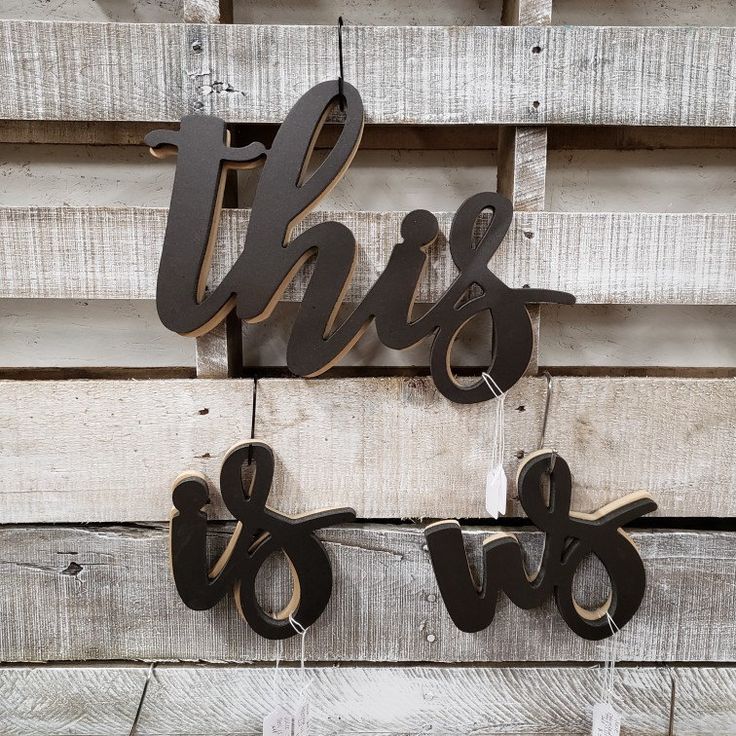
Best Fonts for Wood Signs A Rustic Guide
Best fonts for wood signs? It’s more than just picking a pretty typeface; it’s about creating a visual masterpiece that’s both legible and aesthetically pleasing. The right font can transform a simple piece of wood into a charming farmhouse sign, a rustic welcome message, or a stylish statement piece for your home. We’ll dive into the world of serif, sans-serif, and script fonts, exploring font weights, sizes, and how different wood types influence your choices.
Get ready to discover the perfect font for your next wood sign project!
This post will guide you through selecting the ideal font for your wood sign, covering everything from rustic charm to modern farmhouse styles. We’ll explore font styles, sizes, readability, and material compatibility, ensuring your message is clear and captivating. We’ll also look at specific examples for different sign types, like wedding signs, business signs, and home decor signs. Let’s get crafting!
Font Styles for Rustic Appeal
Choosing the right font for a wood sign is crucial for achieving the desired aesthetic and ensuring readability. The rustic charm of a wood sign is often enhanced by the careful selection of typography, balancing visual appeal with practicality. The font should complement the natural texture and warmth of the wood, creating a cohesive and eye-catching piece.
Serif Fonts for Readability at a Distance
Serif fonts, with their small decorative strokes at the ends of letters, often lend themselves well to wood signs, particularly when readability from a distance is important. Their classic feel aligns perfectly with the rustic aesthetic. Imagine three different wood signs:
Mockup 1: A sign featuring the font “Playfair Display” announces “Welcome to Our Farm”. The elegant serifs and slightly condensed letterforms provide a sophisticated yet rustic feel, ensuring the text remains clear even from afar. The slightly high contrast between thick and thin strokes adds visual interest without sacrificing legibility. The dark brown lettering stands out sharply against the light-colored wood.
Mockup 2: A sign using “Times New Roman” proclaims “Smith Family Orchard”. This classic serif font offers excellent readability, making it suitable for longer text. Its familiar and timeless appearance adds to the rustic charm of the wood. The consistent stroke weight creates a sense of balance and order, suitable for a more traditional sign. The sign is painted in a muted green, contrasting nicely with the wood grain.
Mockup 3: A sign displaying “Handcrafted with Love” in “Garamond” font. Garamond’s subtle serifs and slightly more open letter spacing contribute to its elegant and approachable appearance. This is a great choice for signs requiring a touch of refinement. The soft white paint complements the warm tones of the wood and makes the text easily visible.
Script versus Sans-Serif Fonts on Wood Signs, Best fonts for wood signs
Script fonts, with their flowing, cursive-like appearance, can add a touch of elegance and whimsy to a wood sign. However, their readability can be compromised, especially from a distance or with intricate designs. Sans-serif fonts, lacking those decorative strokes, offer a cleaner, more modern look. They are generally easier to read, making them suitable for signs requiring clear, concise messaging.
The contrast is stark: a script font might be perfect for a romantic, personalized message, while a sans-serif font is ideal for directional signage or a more contemporary aesthetic.
Font Weight’s Impact on Wood Sign Aesthetics
Font weight significantly influences the overall aesthetic of a wood sign. A bold font commands attention and makes a statement, ideal for a prominent sign or a message that needs to stand out. A light font conveys a more delicate, subtle feel, better suited for smaller signs or more understated messages. Regular weight fonts offer a balanced approach, combining readability with a less aggressive visual impact.
The choice depends on the message and the desired overall impression. For example, a bold font might be used for a business name, while a lighter font might be better for a decorative element.
Comparison of Serif Fonts for Wood Signs
| Font Name | Characteristics | Readability | Potential Applications |
|---|---|---|---|
| Playfair Display | Elegant serifs, slightly condensed, high contrast | Excellent | Business names, welcome signs, sophisticated messages |
| Times New Roman | Classic serif, consistent stroke weight, highly legible | Excellent | Informational signs, longer text, traditional designs |
| Garamond | Subtle serifs, open letter spacing, elegant and approachable | Good | Decorative elements, short messages, refined aesthetics |
Font Size and Readability
Choosing the right font size for your wood sign is crucial for ensuring its message is clear and easily read. It’s not just about aesthetics; readability directly impacts the effectiveness of your sign. Getting this wrong can mean your carefully crafted message is lost on the viewer, defeating the entire purpose of creating the sign in the first place.
This section will explore the factors influencing font size selection and provide practical guidance for optimal readability.Font size selection depends heavily on viewing distance and sign dimensions. A larger sign viewed from a distance requires a larger font size than a smaller sign viewed up close. Think of a highway billboard versus a small shop sign. The billboard needs much larger lettering to be legible from a distance of several hundred feet, while the shop sign, viewed from a few feet away, can use a considerably smaller font.
Choosing the best fonts for wood signs is all about that perfect rustic vibe, right? I’ve been experimenting lately, and to get some inspiration for my video tutorials, I checked out some great tips on getting it on with youtube – seriously, their advice on video editing helped me tons! Now I can show off my gorgeous wood sign font choices much better.
Back to fonts – I’m currently loving the classic feel of Playfair Display for a more elegant look.
Ideal Font Size Ranges
A general guideline is to aim for a minimum font size that allows for easy reading from the average viewing distance. For signs viewed from a distance of 10-15 feet, a minimum font height of 1.5 to 2 inches is recommended. For closer viewing distances (3-5 feet), a font size of 0.75 to 1 inch might suffice. However, these are just starting points.
The optimal size also depends on the length of the text, the font style itself, and the overall design of the sign. A bolder font, for example, might be readable at a slightly smaller size than a thinner, more delicate font. Consider using a larger font size for longer phrases to improve readability. A sign with a 30-word phrase would require a larger font size than a sign with a 5-word phrase, even if the signs are of similar dimensions.
Kerning and Letter Spacing’s Impact on Readability
Kerning (adjusting the space between individual letter pairs) and letter spacing (adjusting the space between all letters) significantly affect readability, especially in different font sizes. On smaller signs, slightly increasing letter spacing can improve readability, making the letters less cramped and easier to distinguish. Conversely, on larger signs, tighter kerning might enhance the overall aesthetic appeal without sacrificing readability.
For example, a tightly kerned font on a large, rustic-style sign might add to its charm, whereas the same tight kerning on a small sign could make the text look cluttered and difficult to read. Experimentation is key to finding the optimal balance between aesthetics and readability.
Using Different Font Sizes for Multiple Lines of Text
For wood signs with multiple lines of text, varying font sizes can be used to create visual hierarchy and improve readability. A larger font size for the main message or title draws the eye, while a smaller font size can be used for secondary information or a tagline. For instance, a restaurant sign might use a large font size for “The Cozy Cafe” and a smaller font size for “Breakfast, Lunch & Dinner.” This creates a clear visual separation and helps the viewer quickly understand the sign’s message.
The difference in font size should be noticeable but not jarring. A good rule of thumb is to maintain a consistent aspect ratio between the sizes used for different lines of text.
Example: Long Phrase Sign Design
Let’s say we need a wood sign with the phrase: “Welcome to our charming little farmhouse, nestled amongst rolling hills and blooming meadows.” This is a long phrase, requiring careful consideration of font size and line breaks for optimal readability. Using a rustic-style serif font like Playfair Display, a font size of 1.25 inches for the first line (“Welcome to our charming little farmhouse”) and 1 inch for the second line (“nestled amongst rolling hills and blooming meadows”) would be suitable for a sign that will be viewed from about 5-7 feet away.
The line spacing should be approximately 0.75 inches to avoid the lines feeling cramped. The overall sign size should be adjusted accordingly to accommodate the chosen font size and line spacing. This ensures the text is not only readable but also visually pleasing within the design constraints of the sign.
Font Legibility and Material Compatibility
Choosing the right font for your wood sign isn’t just about aesthetics; it’s about ensuring your message is clear and easily read, regardless of the wood type or finish. The texture and color of the wood, along with any staining or painting techniques, significantly impact font visibility. Let’s dive into how to select fonts that maximize legibility on various wood surfaces.
The interplay between font choice and wood characteristics is crucial for a successful sign. A font that looks stunning on smooth, light-colored pine might be almost invisible on dark, heavily textured reclaimed wood. Conversely, a font perfectly suited for a rustic oak sign might appear too clunky on a sleek, painted surface. Understanding these interactions is key to creating a sign that’s both beautiful and functional.
Fonts Suitable for Various Wood Types
Three fonts that consistently offer high legibility across different wood types are Arial, Times New Roman, and Bebas Neue. Arial, with its clean lines and consistent spacing, works well on almost any wood, from smooth pine to rough-hewn oak. Times New Roman, a classic serif font, offers excellent readability even on darker woods or those with a more pronounced grain.
Bebas Neue, a sans-serif font with bold strokes, is ideal for situations where high contrast is needed, such as on heavily textured or darkly stained wood. Its simplicity makes it highly readable even at smaller sizes.
Wood Texture and Color’s Influence on Font Choice
The texture and color of the wood significantly affect font visibility. Rough, heavily textured woods like reclaimed barn wood require fonts with bolder strokes and wider spacing to prevent letters from blending together. Lighter-colored woods allow for a wider range of font styles and colors, while darker woods necessitate higher contrast between the font and the background. For example, a delicate script font might be lost on dark oak, whereas it would be perfectly legible on light pine.
Similarly, a light-colored font on dark wood will require a larger size or bolder stroke weight to maintain readability.
Font Styles and Wood Finishing Techniques
Different wood staining and painting techniques also influence font selection. For example, a distressed paint finish might pair well with a slightly distressed or vintage-style font, while a clean, modern stain would benefit from a clean sans-serif font. A bold, blocky font would stand out against a rustic, whitewashed finish, while a more elegant serif font might be better suited to a polished, dark stain.
Consider the overall aesthetic you’re aiming for and choose a font that complements the finishing technique.
Font Characteristics for Enhanced Legibility on Wood
Several font characteristics significantly enhance legibility on wood surfaces. A higher x-height (the height of the lowercase ‘x’) improves readability, particularly in smaller font sizes. Sufficient spacing between letters (kerning) and lines (leading) prevents crowding and ensures each character is clearly distinguished. Bolder stroke weights (the thickness of the font’s lines) improve visibility, especially on darker or textured woods.
Finally, simple, clean fonts with minimal ornamentation are generally easier to read than highly decorative ones, particularly on uneven surfaces. The goal is to strike a balance between visual appeal and clarity.
Font Selection for Different Sign Styles
Choosing the right font is crucial for creating a wood sign that truly captures its intended style. The font should not only be legible but also aesthetically complement the overall design and the type of wood used. A mismatch can make even the most beautifully crafted sign look jarring and unprofessional.
Rustic Wood Sign Font Selection
For a rustic wood sign, imagine a weathered, reclaimed wood plank. We want a font that evokes a sense of age and craftsmanship, something that feels worn but not illegible. A great choice would be a serif font like Playfair Display or a slightly more distressed version of a classic serif like Times New Roman. These fonts, with their subtle flourishes and variations in stroke weight, perfectly capture the uneven texture and imperfections characteristic of rustic designs.
The use of decorative elements should be minimal; perhaps a subtle drop shadow to add depth without overwhelming the rustic simplicity. Overly ornate flourishes would clash with the intended feel. Think of a sign advertising a local farm or a quaint bed and breakfast – the font should feel homely and inviting, not overly fussy.
Modern Farmhouse Wood Sign Font Selection
Modern farmhouse style blends rustic charm with clean lines and a contemporary feel. For this style, a sans-serif font like Montserrat or Lato would be ideal. These fonts are clean and easily readable, yet they still possess a certain warmth and approachability. The key is to strike a balance between modern simplicity and rustic charm. A slightly textured or distressed effect applied to the font could subtly nod towards the rustic element, without sacrificing the clean lines that define the modern farmhouse aesthetic.
Consider using a slightly bolder weight for better readability, particularly if the sign will be viewed from a distance. While decorative elements like flourishes are generally avoided in modern farmhouse design, a simple drop shadow can add depth and visual interest without detracting from the clean aesthetic. Think of a sign displaying a family name or a welcoming message for a front porch – it should feel both stylish and welcoming.
Vintage Wood Sign Font Selection
For a vintage wood sign, we want to evoke a sense of nostalgia and history. Fonts like Bebas Neue or Pacifico would be excellent choices. Bebas Neue offers a bold, retro feel, while Pacifico provides a more handwritten, whimsical touch. The choice will depend on the specific vintage aesthetic you are aiming for. Decorative elements can play a significant role here.
Consider using flourishes or embellishments that complement the chosen font, adding to the vintage feel. Think of vintage advertisements or old-fashioned shop signs. A subtle distressed effect on the font or the background could further enhance the vintage look. A drop shadow could add depth, but keep it subtle to avoid overpowering the other decorative elements.
Imagine a sign advertising a vintage shop or a retro-themed event – the font should feel authentic and evocative of a bygone era.
Font Pairings for Different Wood Sign Styles
Font pairings can greatly enhance the overall design. The right combination can create visual harmony and emphasize the desired aesthetic.
- Rustic: Playfair Display (heading) paired with a simpler serif like Merriweather (body text).
- Modern Farmhouse: Montserrat (heading) paired with Open Sans (body text).
- Vintage: Bebas Neue (heading) paired with a script font like Great Vibes (body text, for a more handwritten look).
Visual Examples and Descriptions
Choosing the right font for your wood sign is crucial for conveying the desired message and aesthetic. The visual characteristics of a font—its texture, style, and overall feel—significantly impact the sign’s effectiveness. Let’s explore some examples for different applications.
Wedding Sign Font Characteristics
A wedding sign typically calls for a font that exudes elegance and romance. Imagine a script font, perhaps with subtle flourishes and a slightly textured appearance, reminiscent of calligraphy. The texture could be a slightly distressed or antiqued look, suggesting a vintage or handcrafted feel, without being overly rough. The style should be refined and graceful, perhaps with slightly connected letters for a flowing, romantic look.
Think of a font that evokes feelings of love, celebration, and timeless beauty. The overall effect should be sophisticated yet inviting.
Business Sign Font Characteristics
For a business sign, the font needs to be professional, legible, and memorable. A sans-serif font, clean and modern in style, would be a strong choice. The texture should be smooth and consistent, conveying professionalism and reliability. Avoid overly stylized or decorative fonts; instead, opt for a font that is easily readable from a distance, even in varying lighting conditions.
Think of a font that projects confidence and trustworthiness, reflecting the brand’s identity and values. The overall impact should be clear, concise, and impactful.
Home Décor Sign Font Characteristics
Home décor signs offer more flexibility in font selection. A playful, slightly quirky font could work well, perhaps with a slightly hand-drawn or vintage-inspired texture. The style could range from a whimsical script to a bold, slightly distressed sans-serif, depending on the overall décor theme. Think of fonts that evoke feelings of comfort, warmth, and personality. A slightly uneven or textured appearance can add to the rustic charm.
The overall impression should be inviting and reflect the homeowner’s unique style and taste. Perhaps a font that suggests a handmade quality, perhaps even mimicking a brushstroke or stencil effect.
Conclusion: Best Fonts For Wood Signs
Source: fancyfonts.top
Choosing the best font for your wood sign is a journey of balancing aesthetics and readability. From the rustic charm of a serif font to the clean lines of a sans-serif, the perfect choice depends on your design style, the wood’s characteristics, and your message. Remember to consider font size, spacing, and the overall visual impact to create a sign that’s both beautiful and easy to read.
So, grab your tools, choose your font, and let your creativity flow! Happy crafting!
Query Resolution
What’s the best way to paint letters on a wood sign?
Use high-quality acrylic paints for vibrant, long-lasting results. Multiple thin coats are better than one thick coat to prevent cracking.
How do I prevent bleeding when painting letters on wood?
Use a primer on the wood first to create a smooth, even surface. Also, use a stencil and painter’s tape for clean lines.
Can I use a vinyl cutter to create my lettering?
Absolutely! Vinyl lettering offers a clean, professional look and is easy to apply. Choose a high-quality vinyl designed for outdoor use if needed.
What if my wood sign has a knot? How do I work around it?
Design your lettering to avoid the knot if possible. If it’s unavoidable, carefully paint around it or incorporate it into your design.